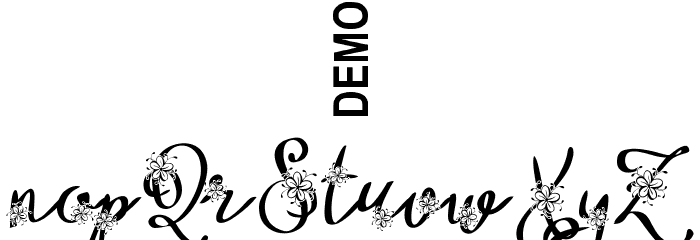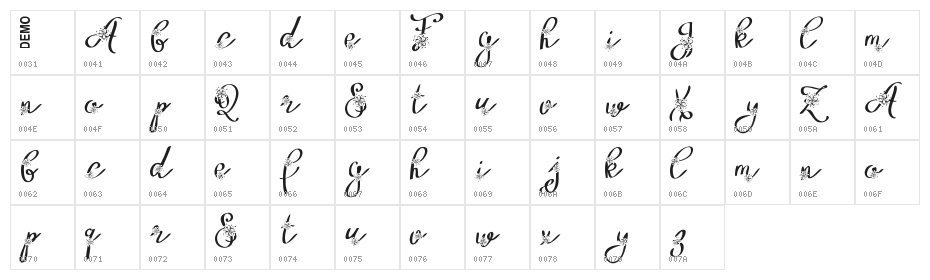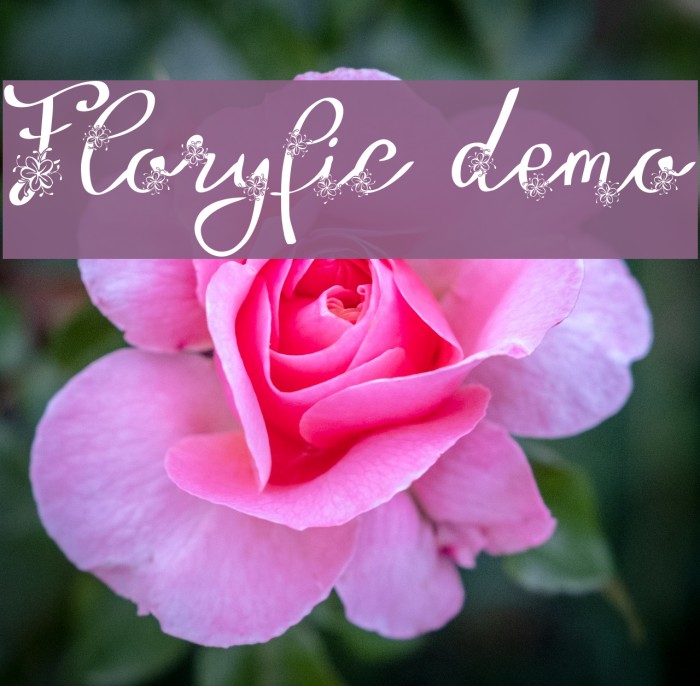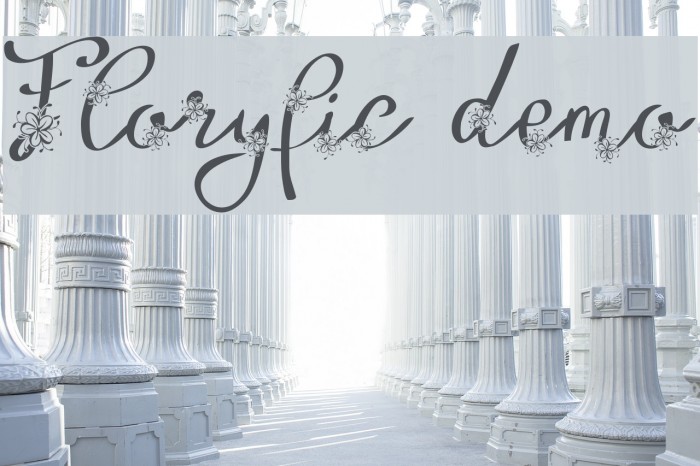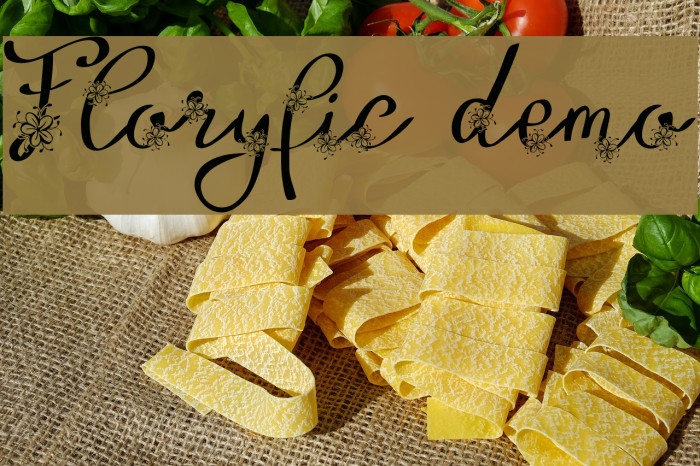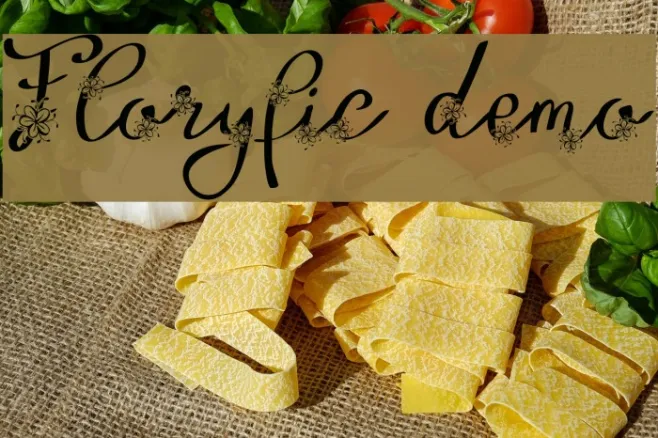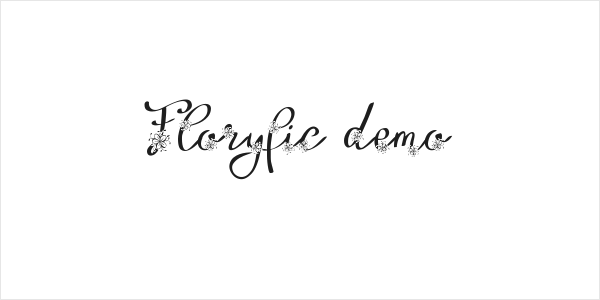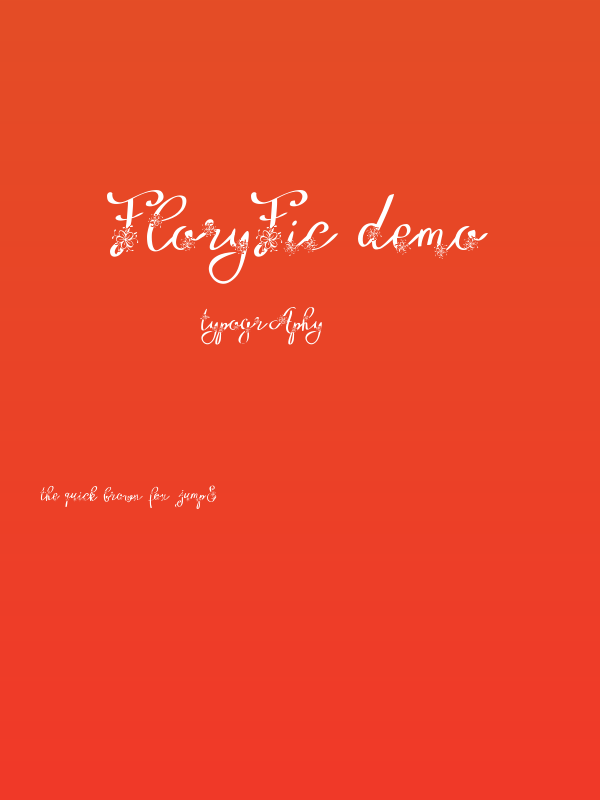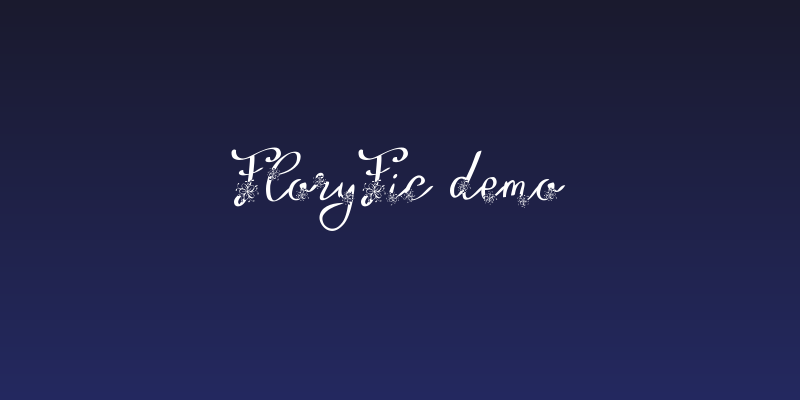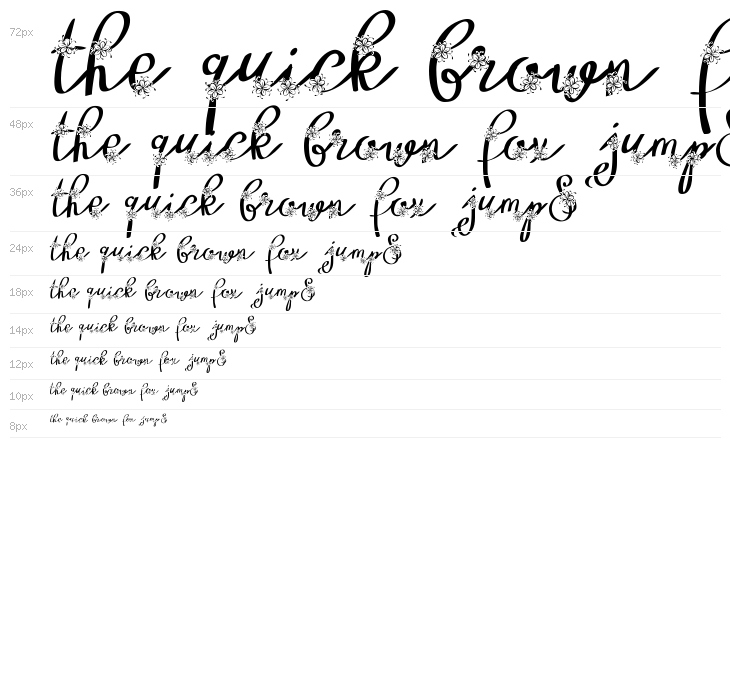
Floryfic Demo Font
Floryfic Demo Description
This font features an elegant, decorative script style with intricate floral embellishments integrated into each character. The uppercase letters are particularly ornate, with flowing lines and elaborate swirls that give a sense of sophistication and artistic flair. The lowercase letters maintain a consistent style, offering a harmonious blend of curves and loops. The floral elements add a unique touch, making the font stand out as both artistic and playful. This font is ideal for projects that require a touch of elegance and creativity, such as invitations, greeting cards, or branding materials that aim to convey a sense of luxury and uniqueness.
Use CaseHeadlines, Invitations, Artistic projects
Proposed ProjectsIdeal for wedding invitations, greeting cards, luxury branding, and artistic projects.